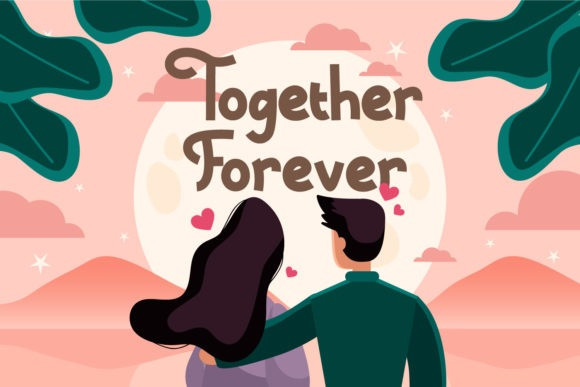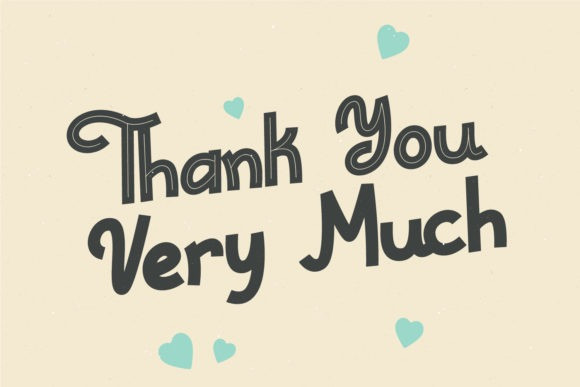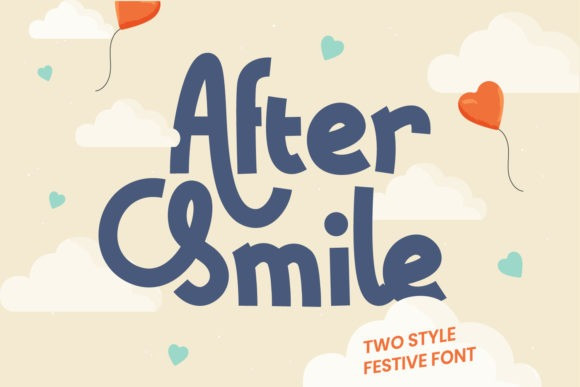
After Smile Display Font
After Smile is a cute display font. This gentle font will look gorgeous on a variety of design ideas. It will add a jolly and sweet touch to each of your projects!